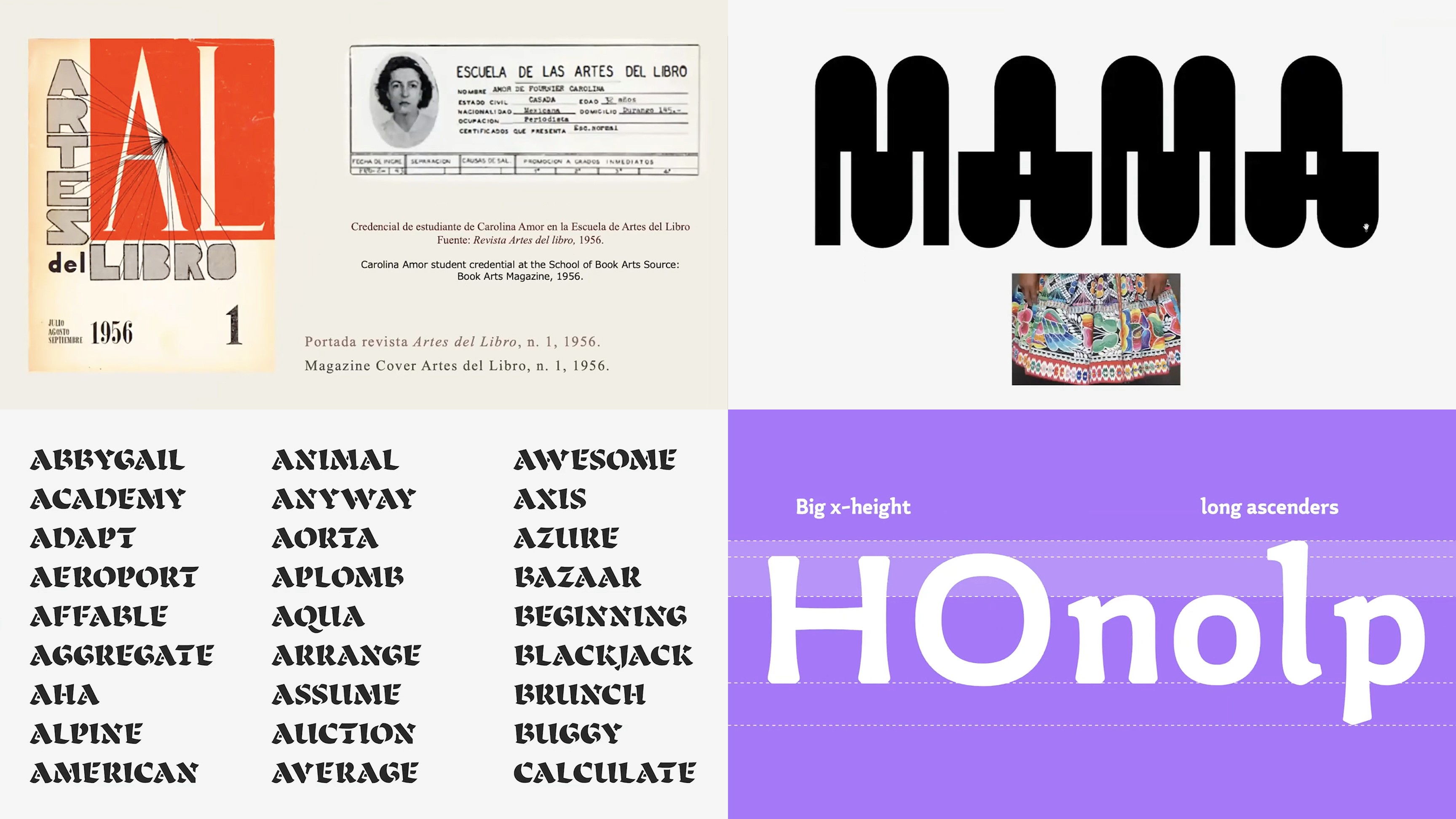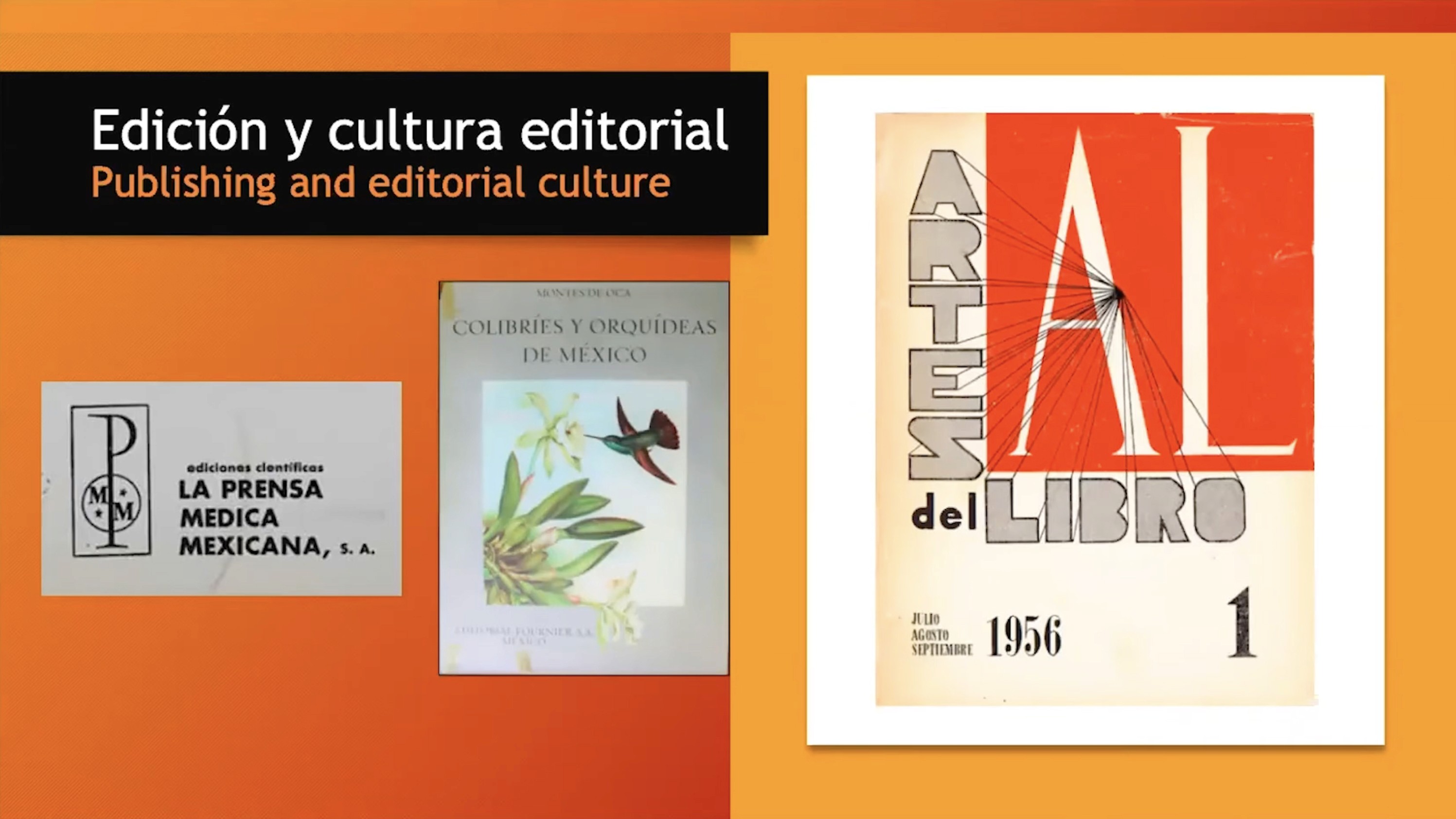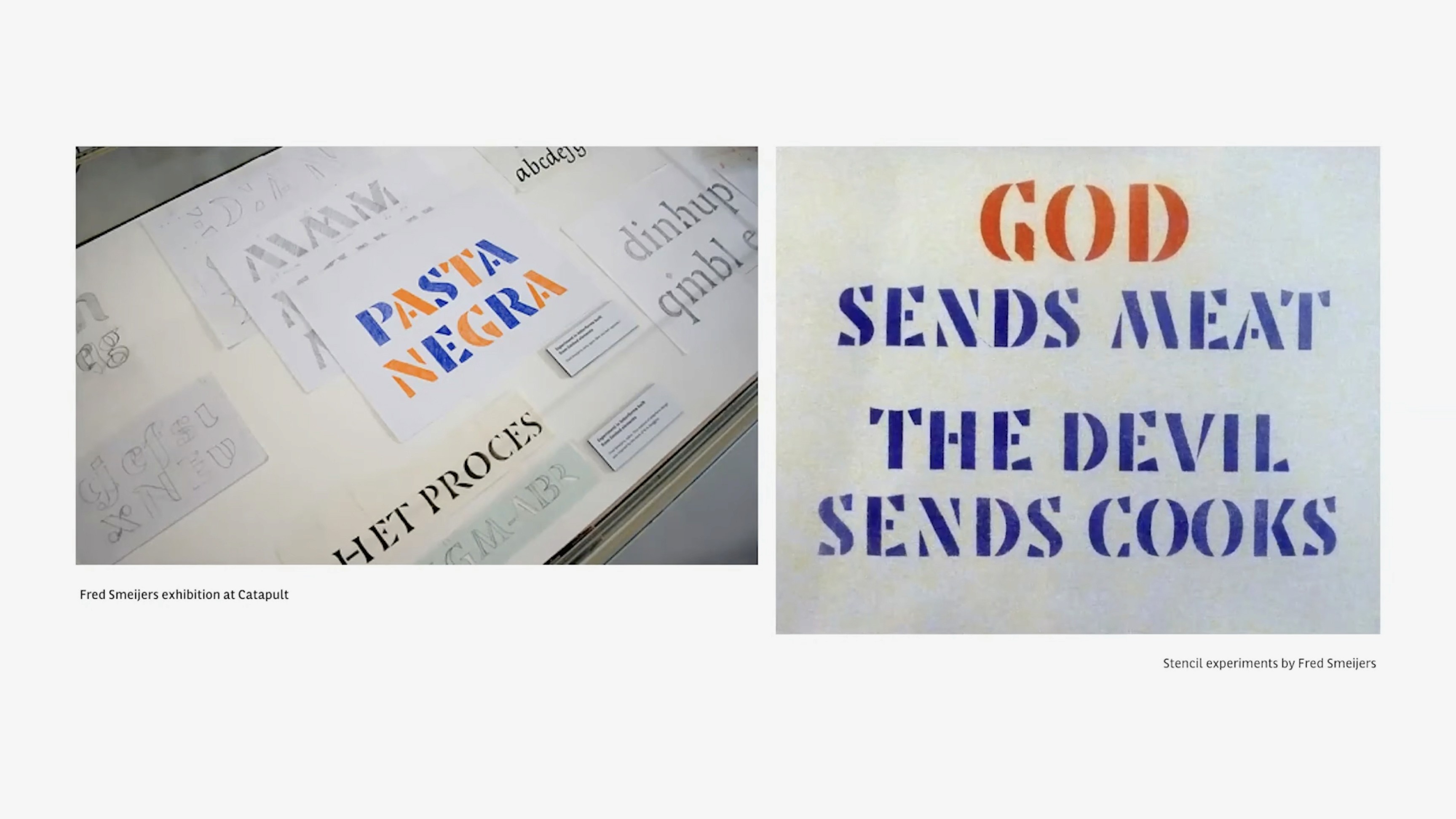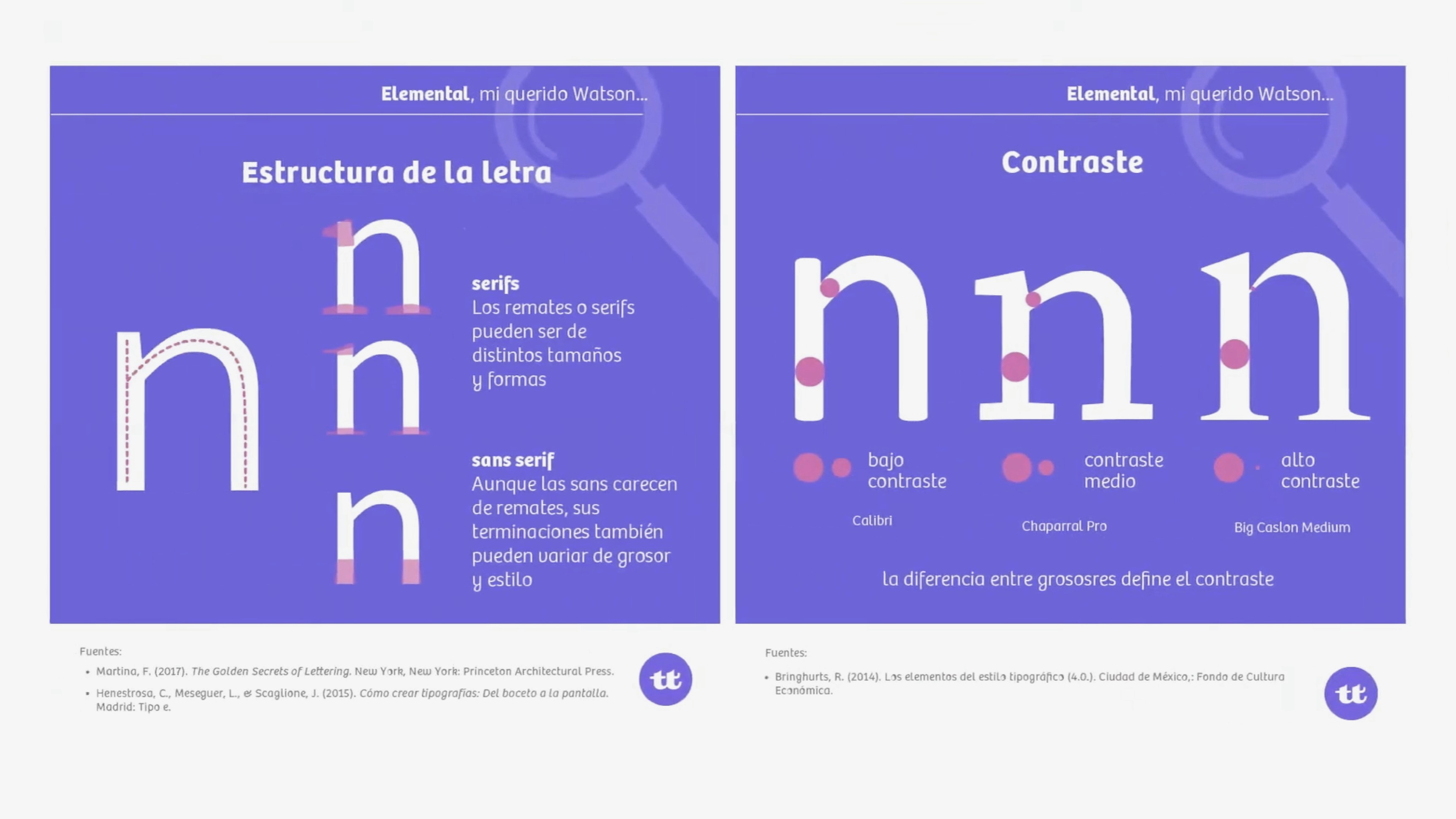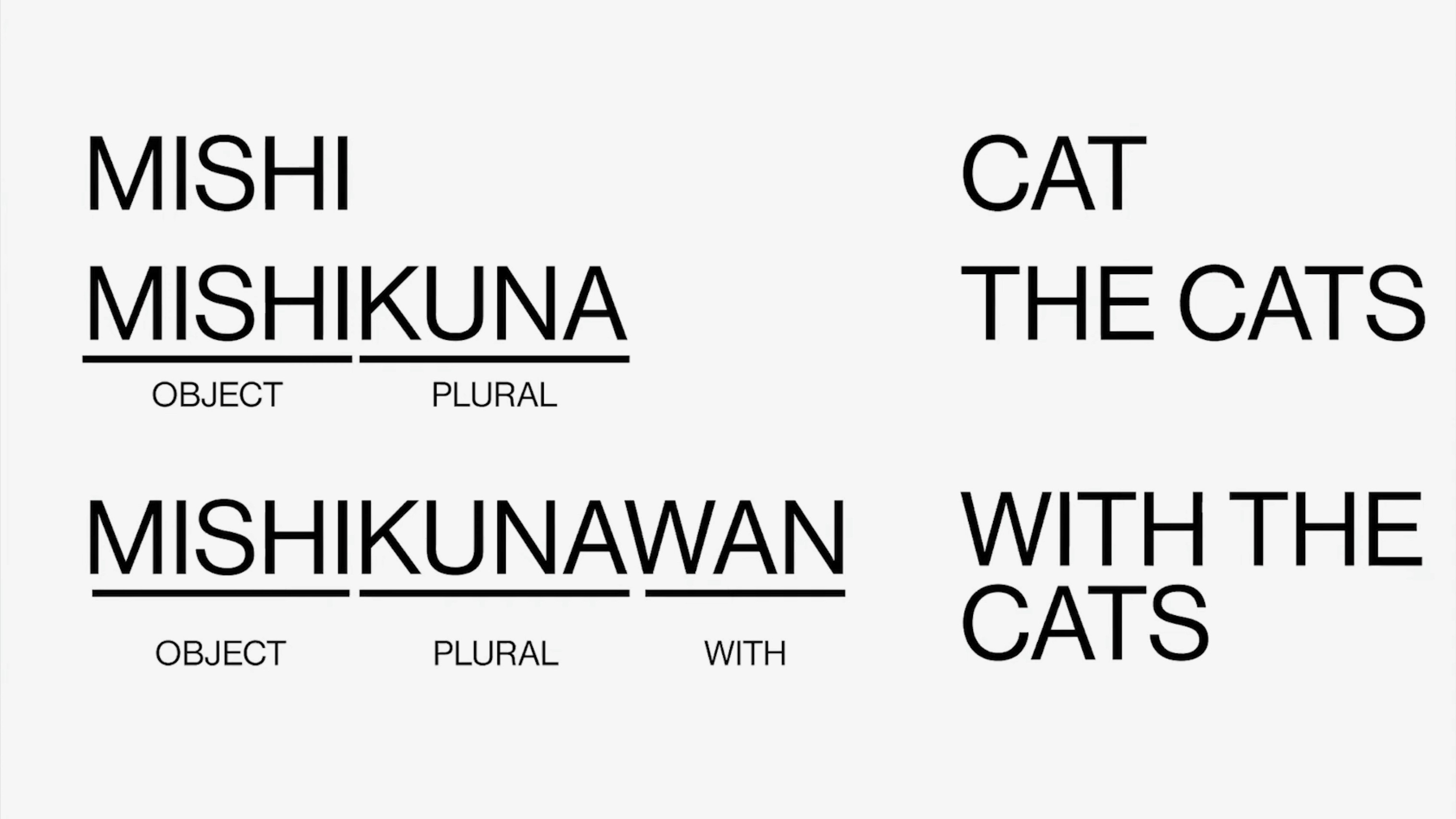
Presented as part of HMCT’s 2020 Typographer-in-Residence program, the series highlights the creative and professional work of Hispanic women in typography and graphic design. That year, the residency was held online and expanded to include five designers: Laura Meseguer, Dafne Martínez and Sandra García (Tipastype), Marina Garone Gravier, and Jimena Gamio. The program opened with presentations introducing each project and concluded on International Women’s Day on March 8 with a final session sharing the outcomes of their work.
Laura Meseguer (Spain) Research Topic: Exploring how calligraphic principles can inform and enrich the design of stencil typefaces.
Laura Meseguer, a graphic and type designer based in Barcelona, examines how the logic of calligraphy can guide stencil type design. Her project begins with the calligraphic studies of Oriol Miró, who created humanist roman and italic models using broad-nib pens of different widths. Building on his work, she develops a type family that retains the rhythm and gesture of handwriting while translated into stencil form.
Dafne Martínez (México) & Sandra García (Colombia) Research Topic: Type design for early literacy
Dafne Martínez and Sandra García focused on how type design can support children who are learning to read. They studied textbooks created by Mexico’s Ministry of Education for students ages 5 to 7, looking at how letterforms affect reading development. Based on what they learned, they are creating a typeface designed to make the reading process easier and more engaging for young readers.
Marina Garone Gravier (México) Research Topic: Carolina Amor de Fournier, Pioneer in teaching the history of books and typography in Mexico
Marina Garone discusses her research on Carolina Amor de Fournier’s pioneering role in teaching the history of books and typography in Mexico, and in advancing the visibility of women within print culture. Drawing from archival materials, interviews, and articles, Garone is developing a biographical essay on Amor de Fournier, highlighting her contributions to the study of Mexican printing and typographic history.
Jimena Gamio (Peru/Los Angeles)
Research Topic: Quechua, The people’s speech
Jimena Gamio explores Quechua, one of the world’s major primary language families, spoken by nearly ten million people across the Andean region. Her research focuses on how Quechua continues to shape Peruvian Spanish, particularly the Ribereño dialect.
Mujeres Hispanas y Tipografía: Final presentations
The residency concluded with a joint presentation bringing together the four designers—Laura Meseguer, Dafne Martínez, Sandra García, Marina Garone Gravier, and Jimena Gamio—to share the outcomes of their research and design projects. Each resident presents the development of their work, reflecting on process, findings, and the broader role of typography and language in their practice.